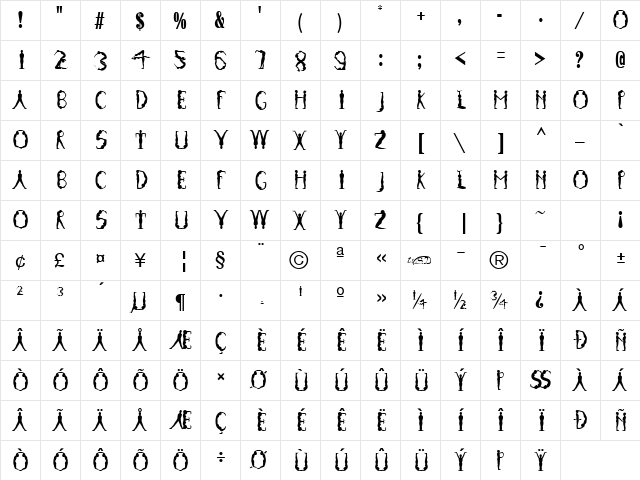
Gymnastics Regular
Design Context for Gymnastics Typeface
Gymnastics is a composed and adaptable typeface that performs quietly and consistently across a wide range of design contexts.